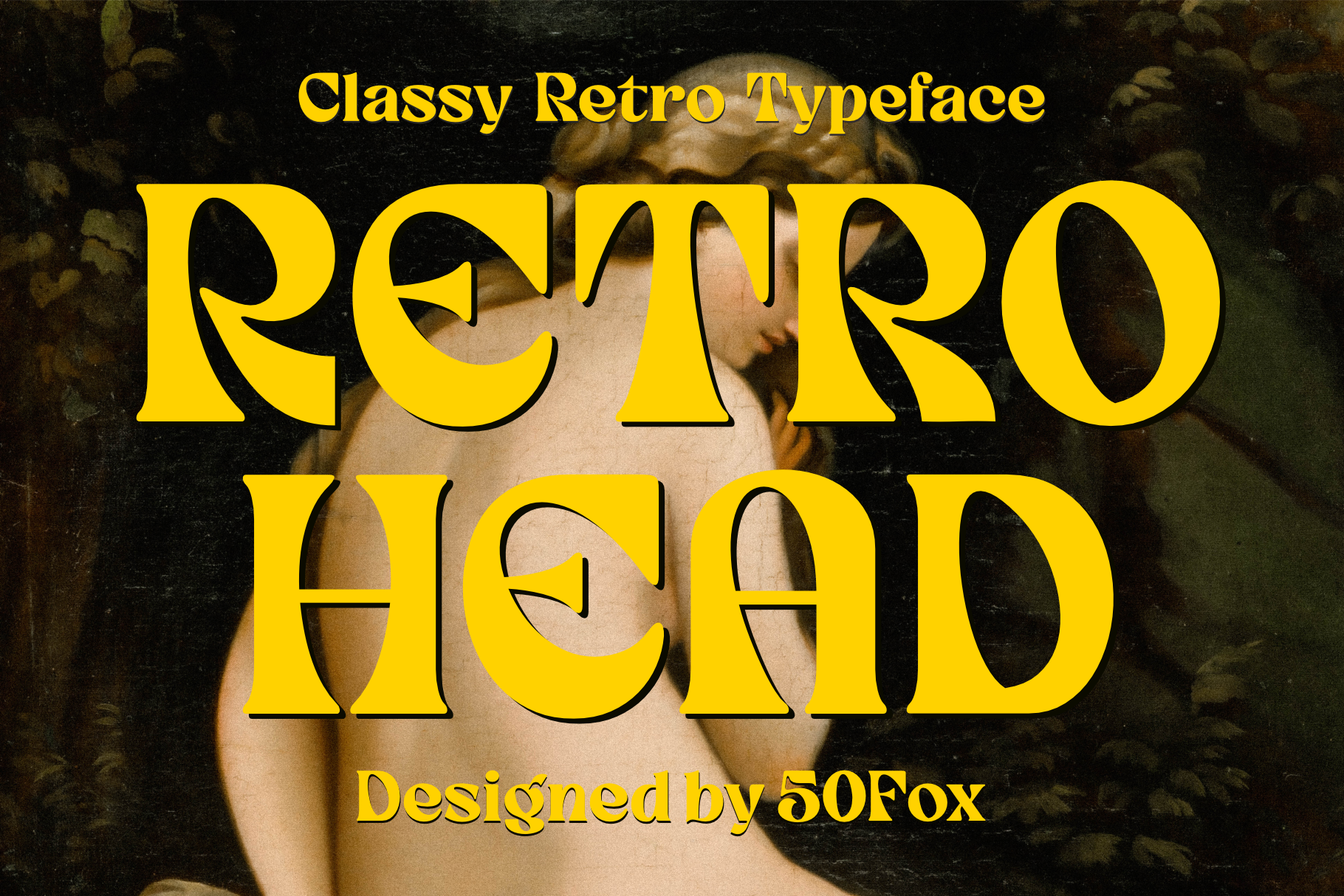
Retro Head Classy Retro Typeface
“Everything old is new again,” as they say.
Introducing "Retro Head" - A retro-modern inspired typeface with a bold, charming and versatile look. This font is also equipped with an opentype feature to support your creations.